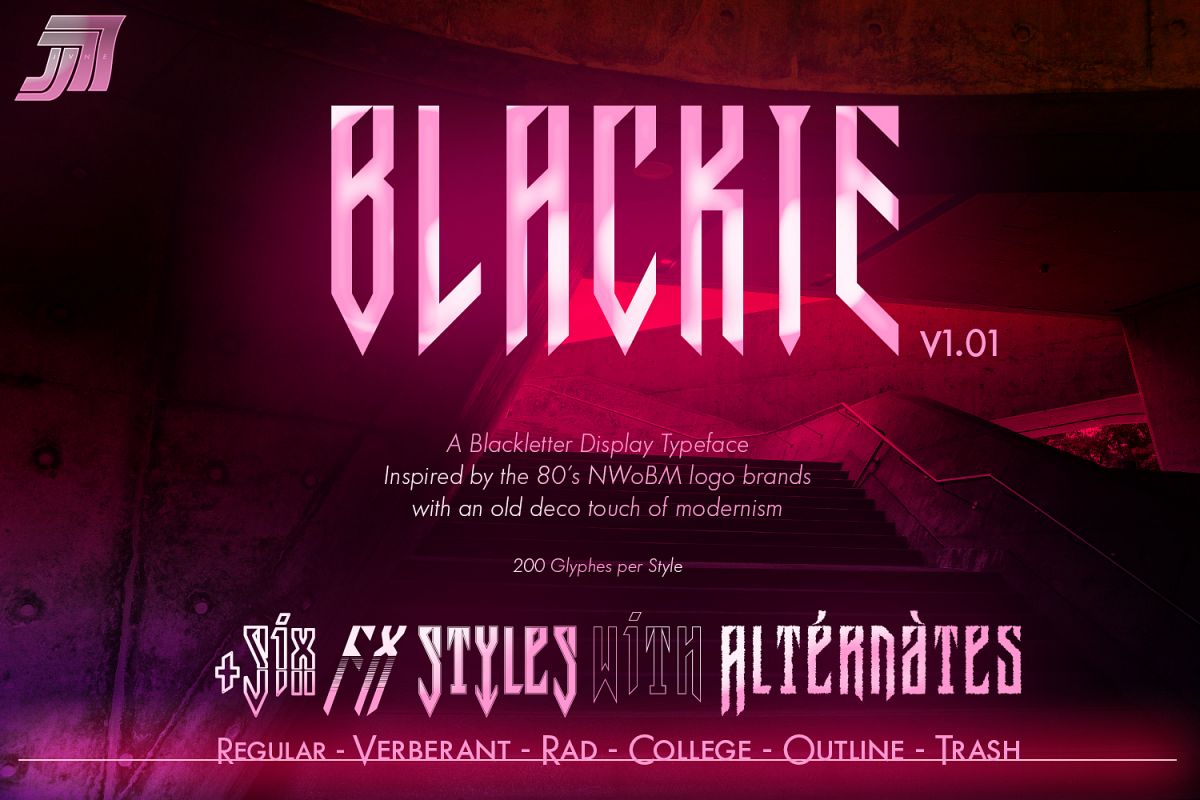
JVNE-Blackie Display Font Family Update v1.01
JVNE-Blackie
JVNE-BlackieCollege
JVNE-BlackieOutline
JVNE-BlackieRad
JVNE-BlackieVerberant
JVNE-BlackieTrash
JVNE-Blackie is a display typeface inspired by some heavy metal band logos from the 80's.
It's a brand new Retro-Futurist Fraktur typeface, covering most latin language and european accents.
Blackie now comes with six styles and some alternates: Regular, College, Outline, Trash, Verberant & Rad.
Each one Include 200 glyphes.